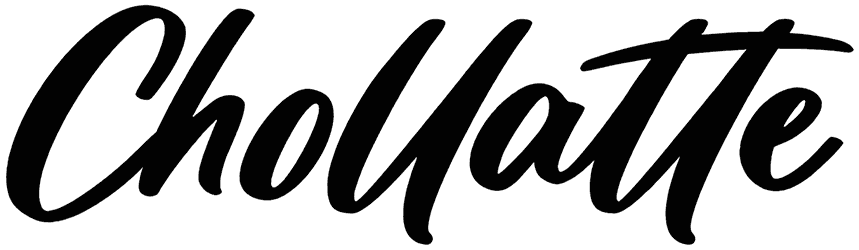
Chollatte Font
If you want to fulfill the expectations of the customers and satisfy them with the unimaginable quality of your artwork, we offer you to try Chollatte in posters, digital banners, brochures, announcements, and invitations. Although this beach script font doesn’t support numbers, it is designed obliquely with a sophisticated flow that adds a sense of personalization, dynamism, love, and playfulness to your graphic content.